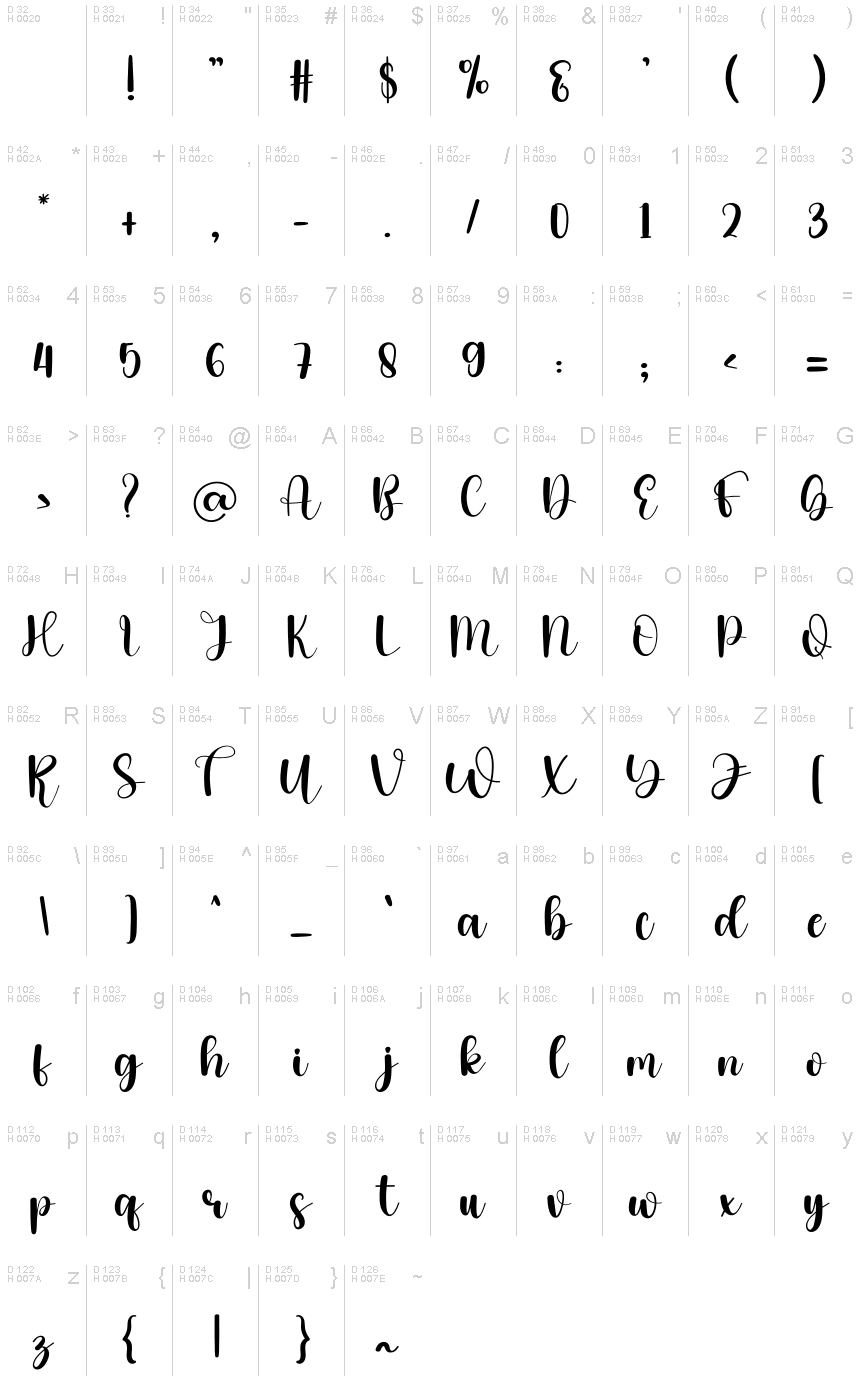
Diary Chrismas
Diary Chrismas font by PiPi Creative is a flowing and playful handwritten font that presents elegance and style in its glyphs. The typeface combines classic letters with modern ones, making it a stylish unique free font for any design project.
Use this wonderful script for kids’ artwork, postcards, invitation cards, t-shirt designs, pillow covers typography, logos & branding, magazines covers & page headers, advertising projects & banners or posters titles.